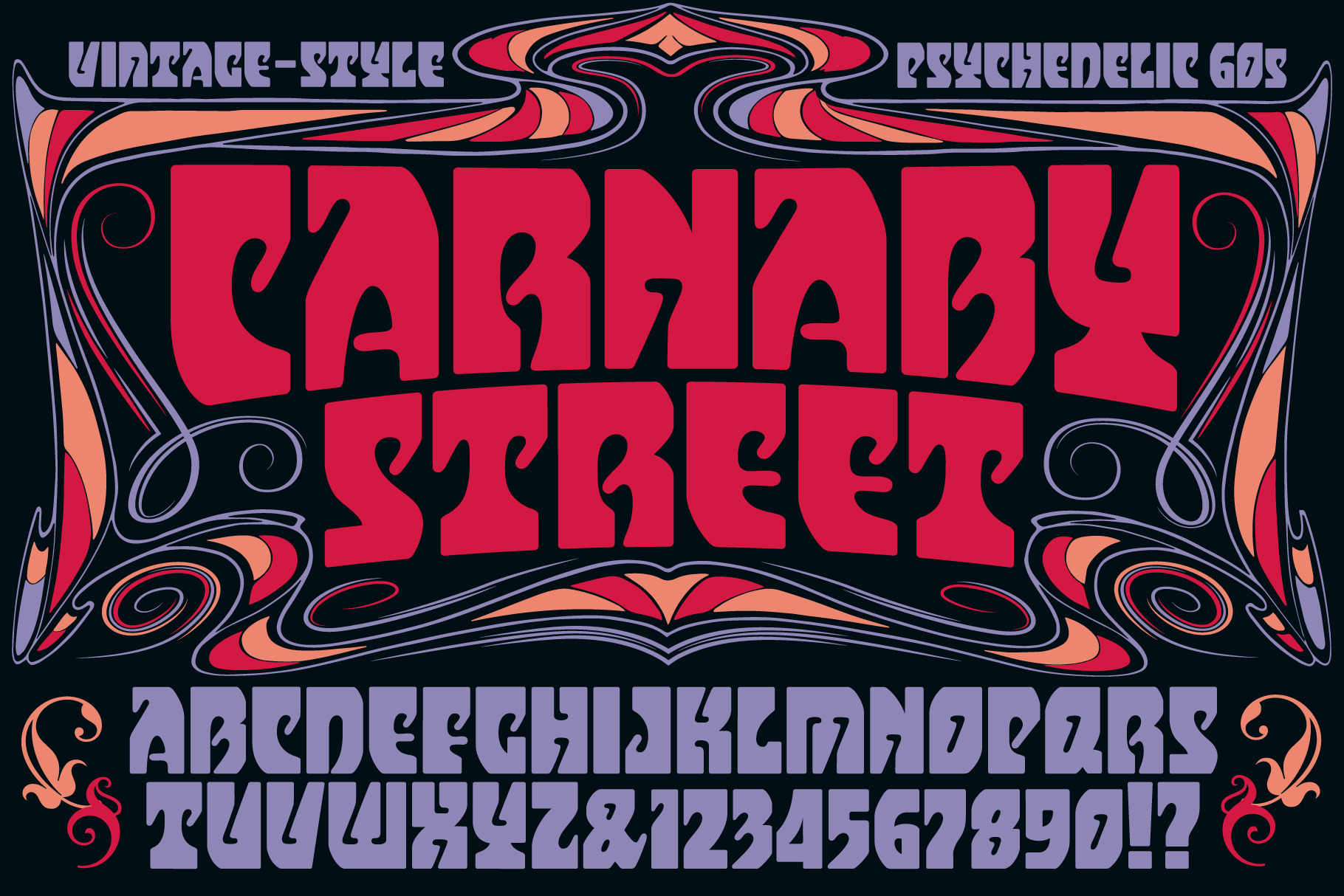
Carnaby Street Font
Flower Power Baby! Carnaby Street is a retro-styled font in the classic tradition of the swingin' sixties. This lettering style is ideal to conjure up the vintage vibe of a London Mod fashion boutique, or San Francisco's Haight-Ashbury district, circa 1967.
With Art Nouveau roots, grown up through full-fledged psychedelic poster art, this fresh 21st-century take on the style has a vibrant combination of rectangularity and soft rounded elements, creating some lively visual interplay that really pops off the page.